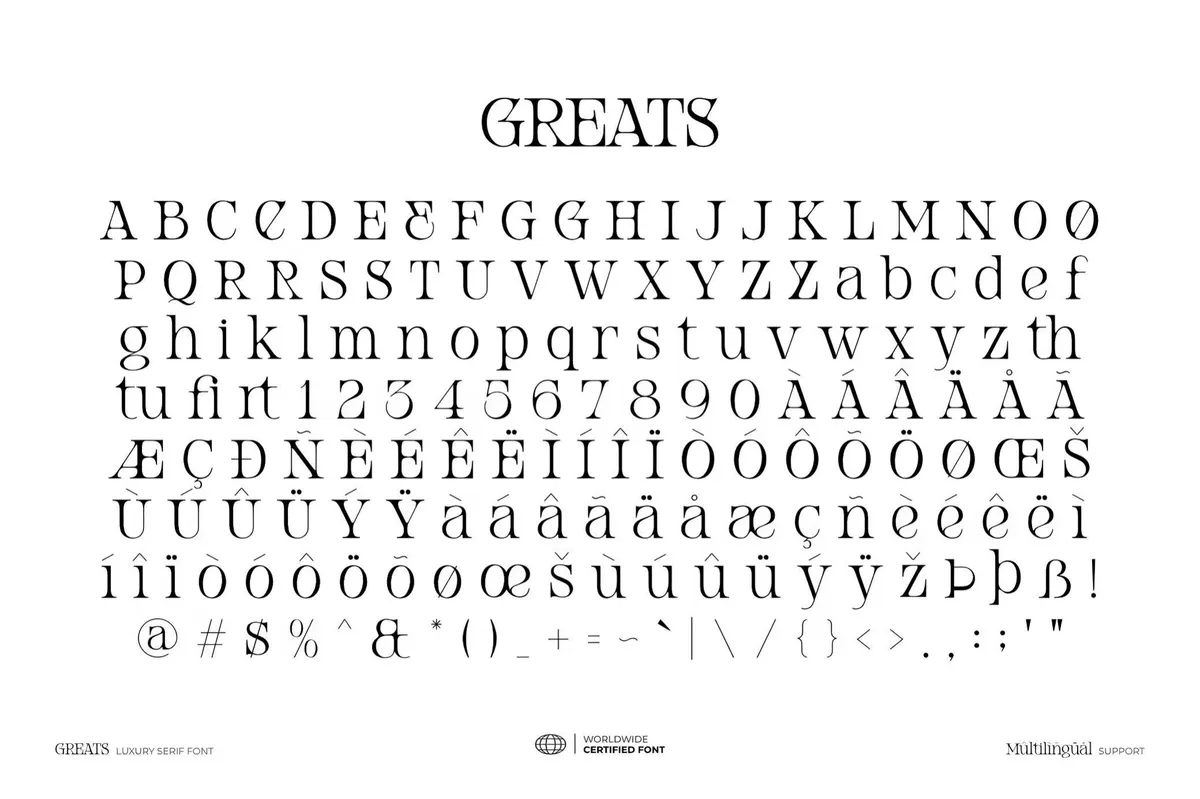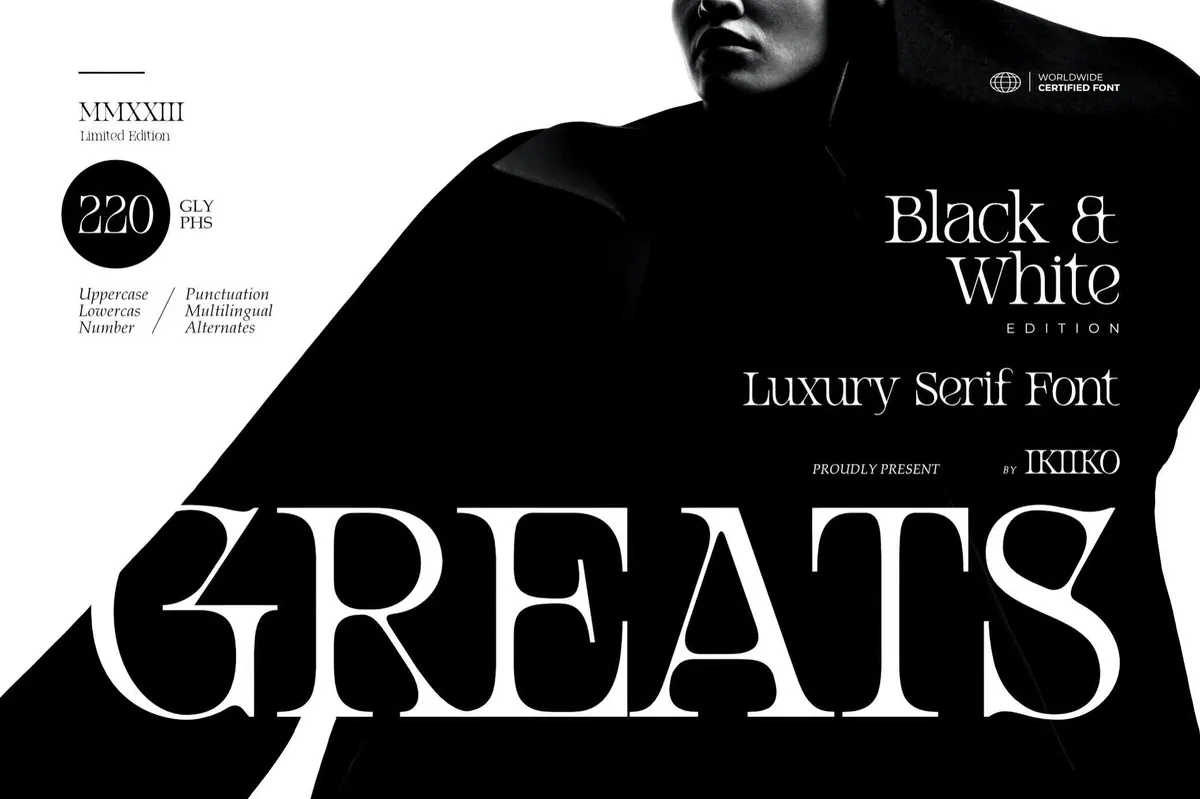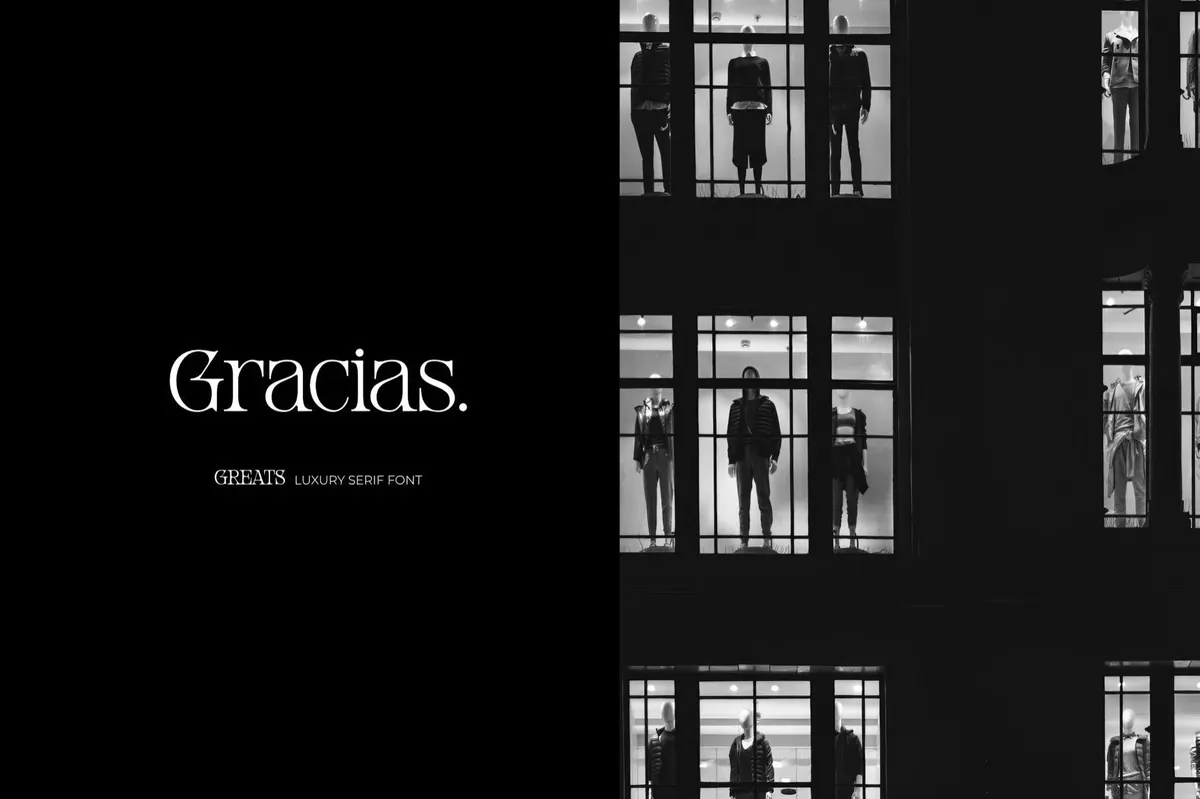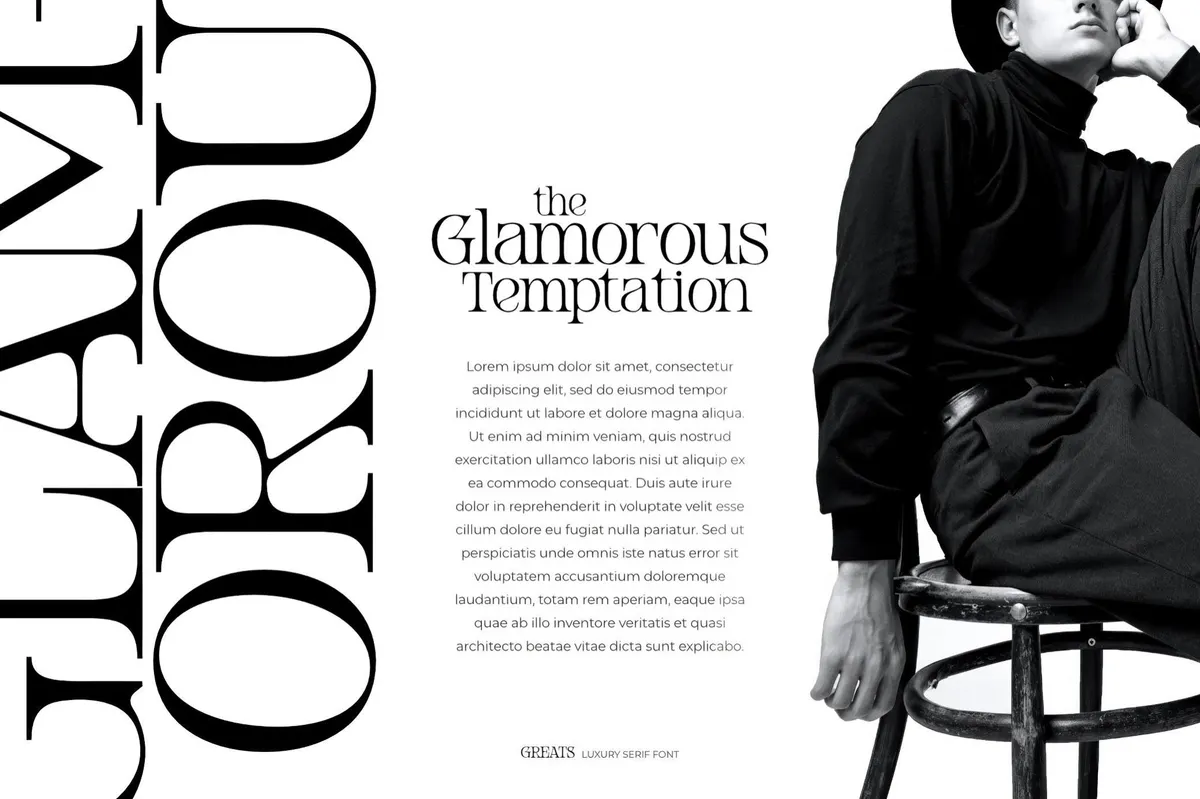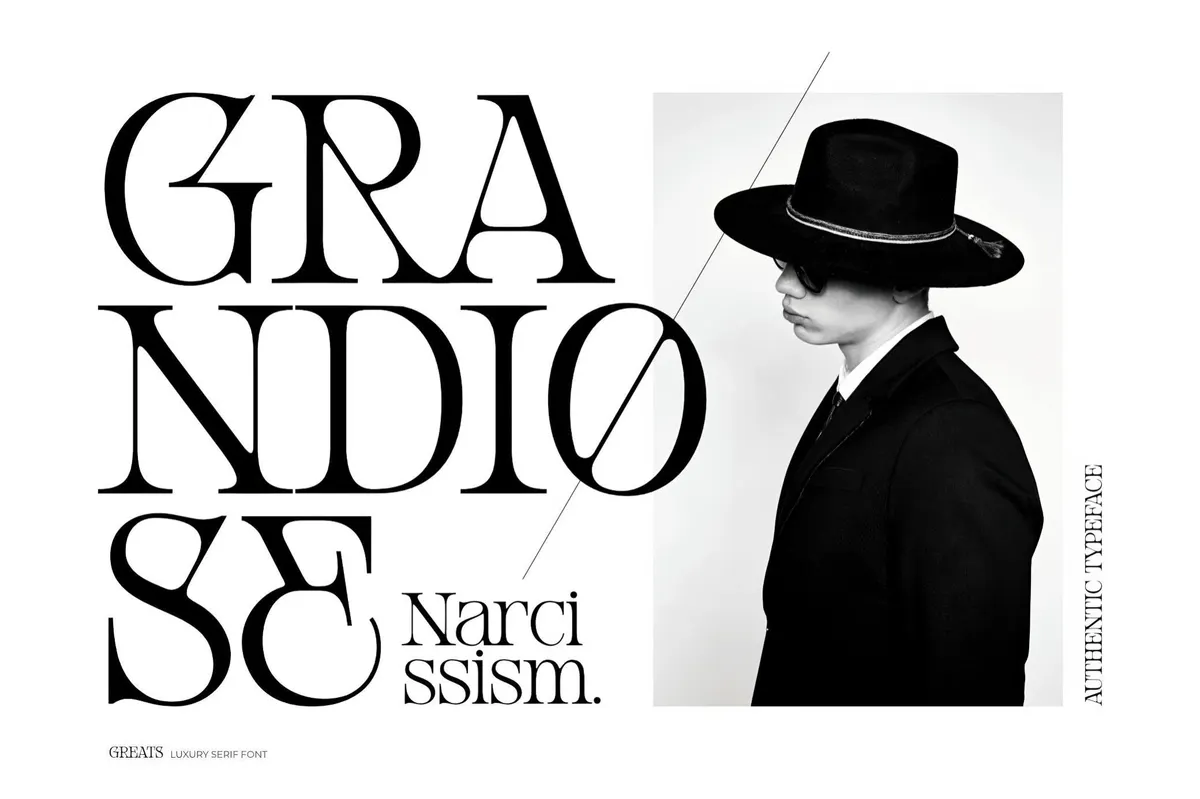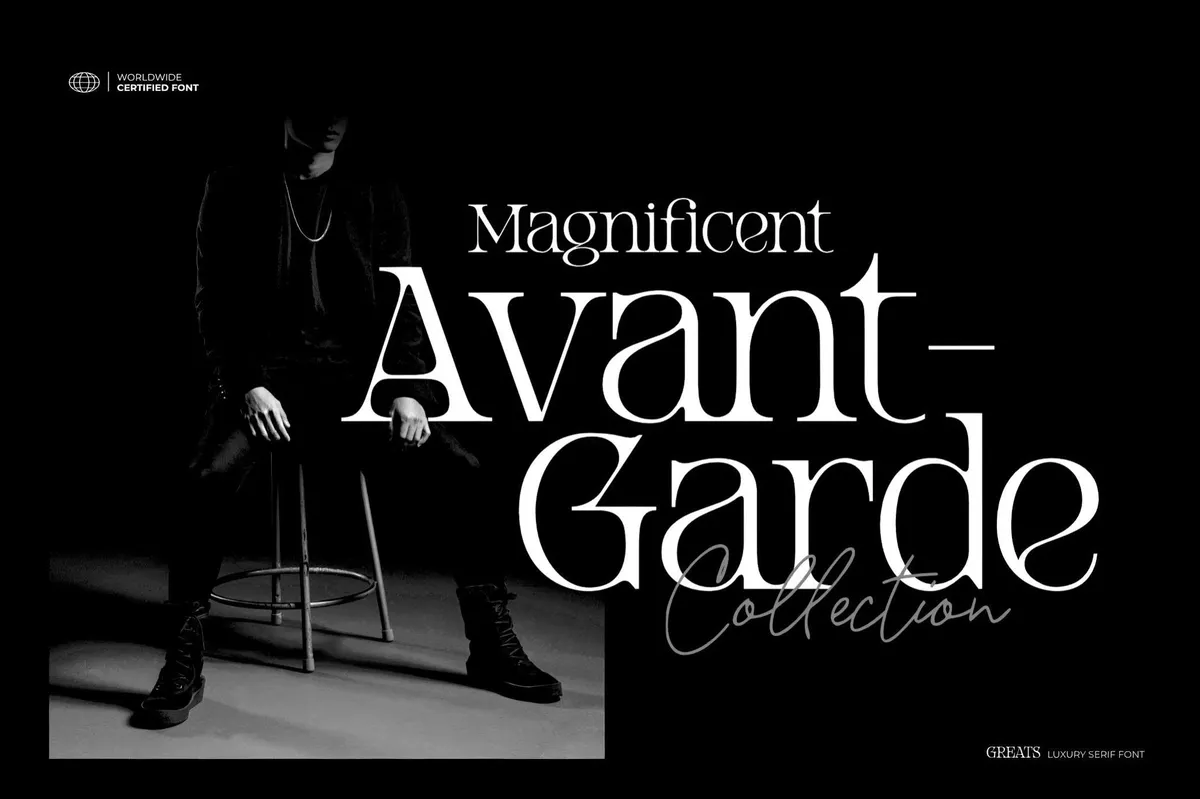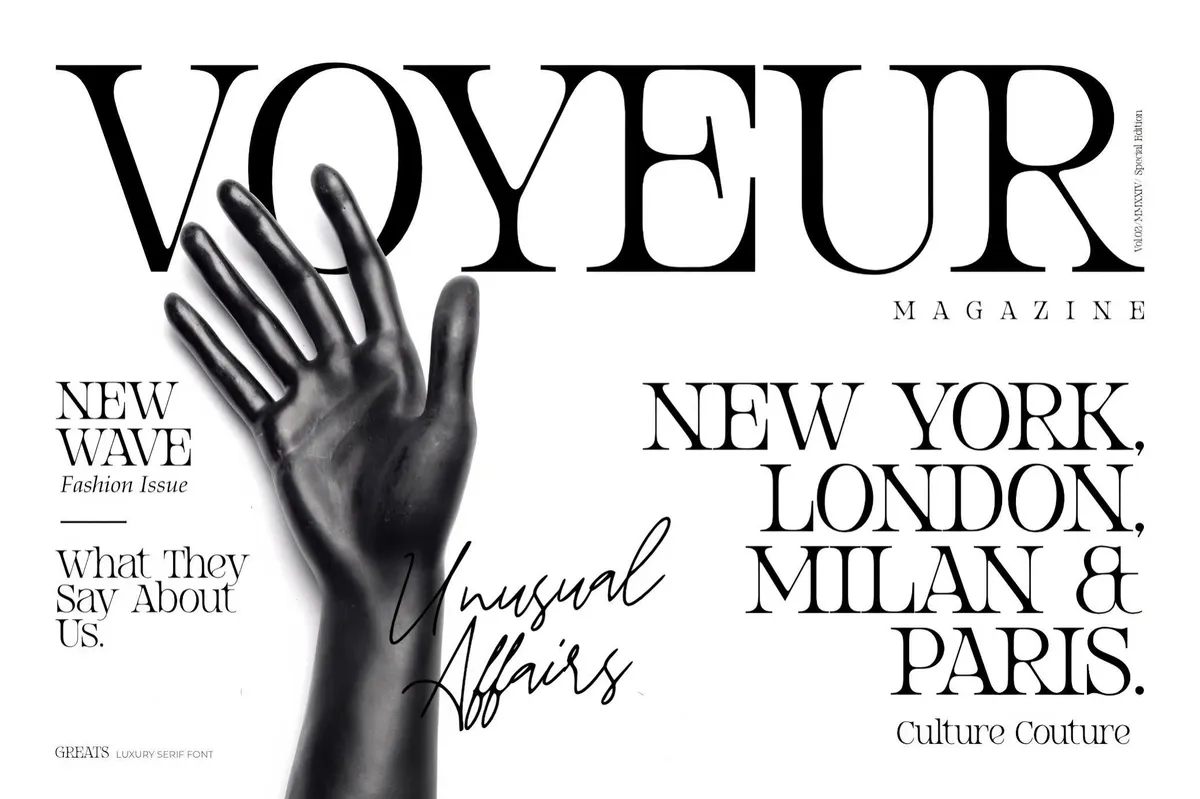
Greats — Luxury Serif Font
Greats is a font with haute couture vibes from A to Z. Its sharp, angular serifs and subtle curves add a contemporary twist to the traditional serif structure, making it one-of-the-kind in your type toolbox. Greats features a complete characters set, including ligatures, alternates, and multilingual support. The font pairs beautifully with minimal layouts and black-and-white aesthetics. It would work well in high-end fashion branding, luxury product packaging, art magazines, or headline typography.